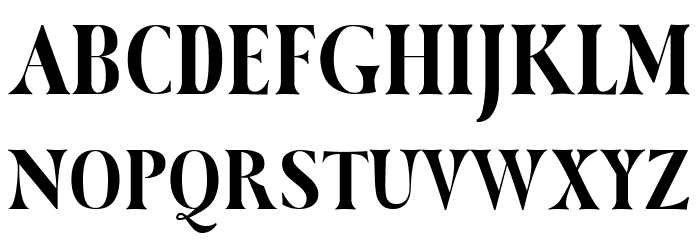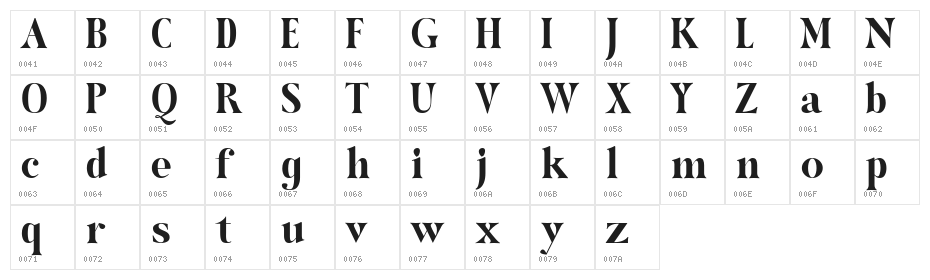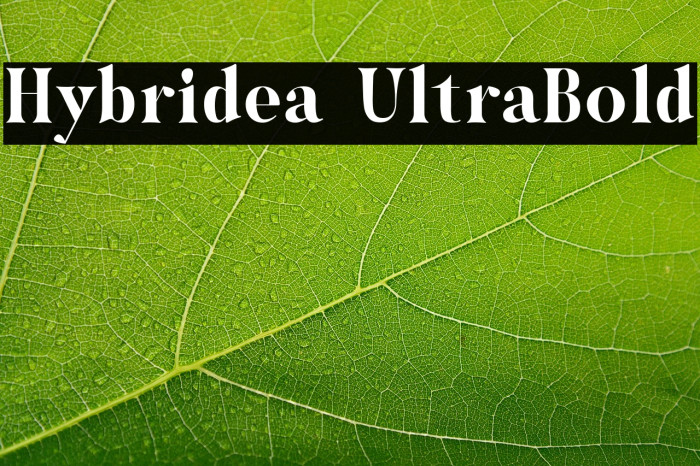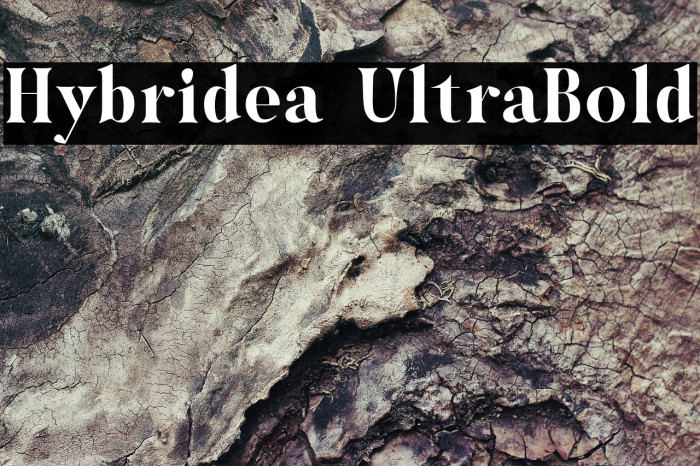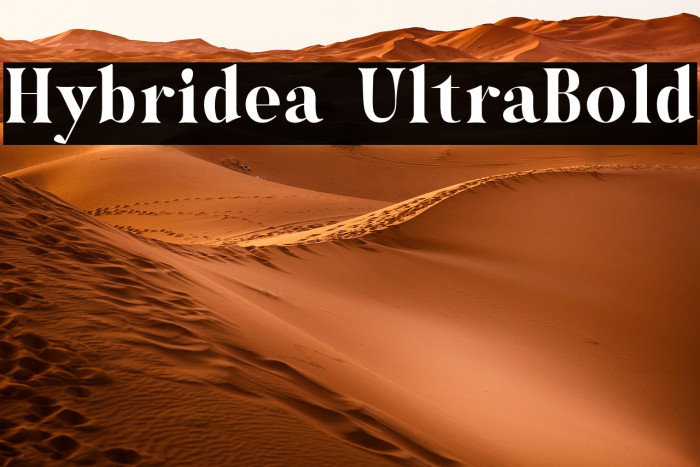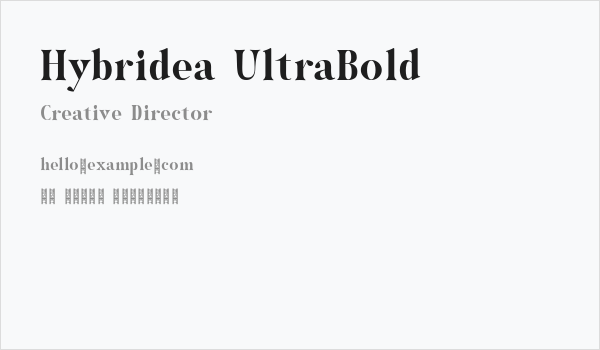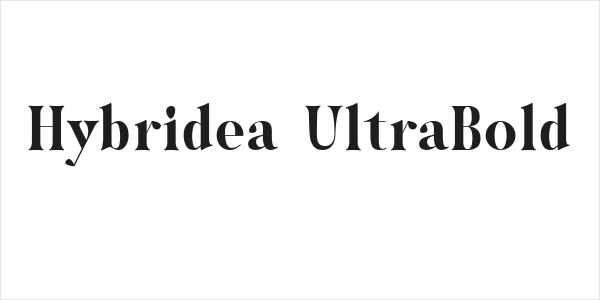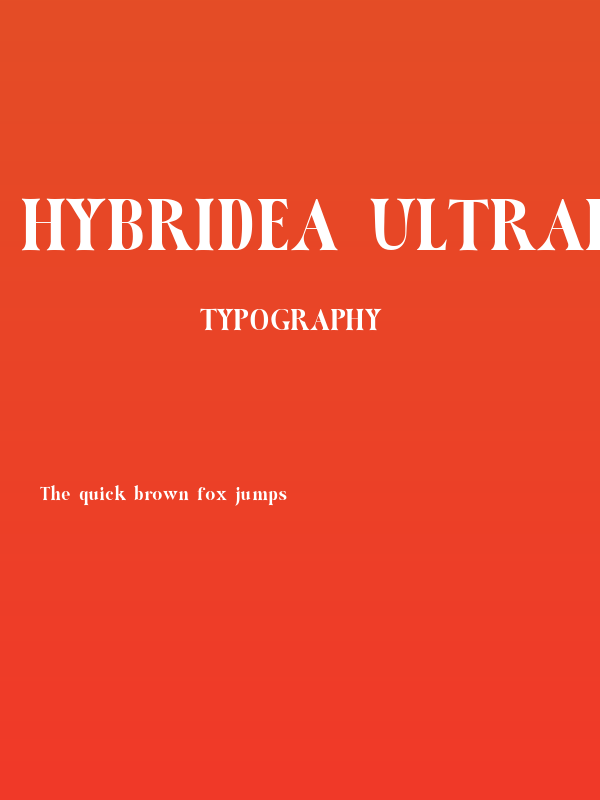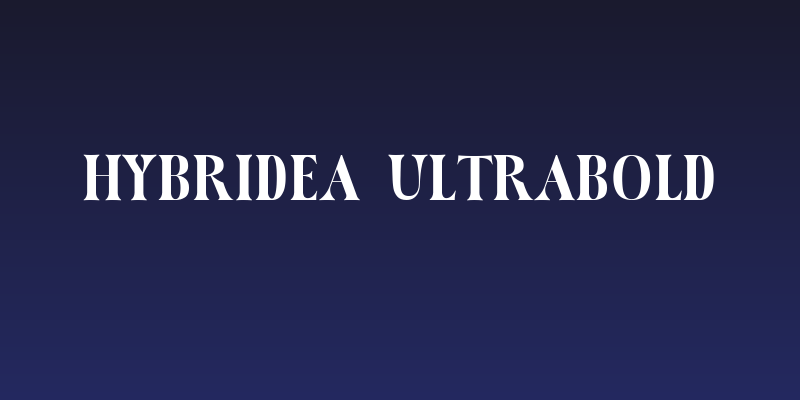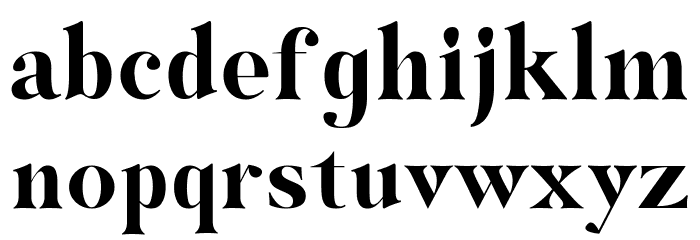
Hybridea UltraBold Font
Hybridea UltraBold Description
This font features a bold and striking design with a high contrast between thick and thin strokes, giving it a dramatic and impactful appearance. The serifs are sharp and pronounced, adding a touch of elegance and sophistication. The uppercase letters are tall and commanding, while the lowercase letters maintain a consistent style with slightly rounded edges that soften the overall look. The font's unique character is further enhanced by its distinctive curves and angles, making it suitable for attention-grabbing headlines and titles. Its bold weight and classic style make it versatile for various design projects.
| Proposed Projects | Ideal for use in branding, editorial design, posters, and advertising where a strong visual impact is desired. |